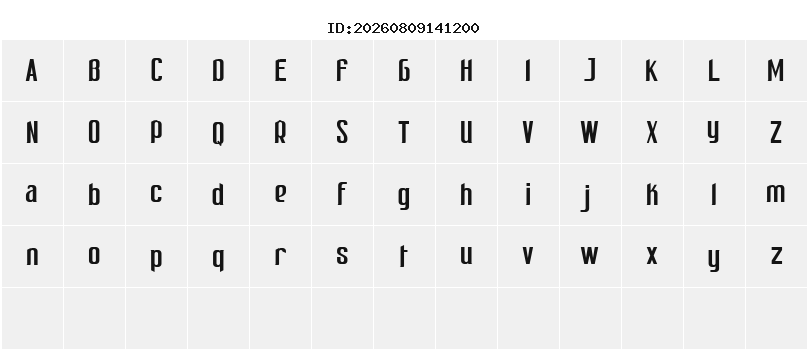
Patinio Ricardo Preview
• Font Name: Patinio Ricardo
• Full Font Name: Patinio Ricardo
About Patinio Ricardo.ttf
Patinio Ricardo.ttf is a modern, elegant sans-serif font designed for ultimate readability and visual harmony. Perfect for branding, headlines, web design, and print materials.